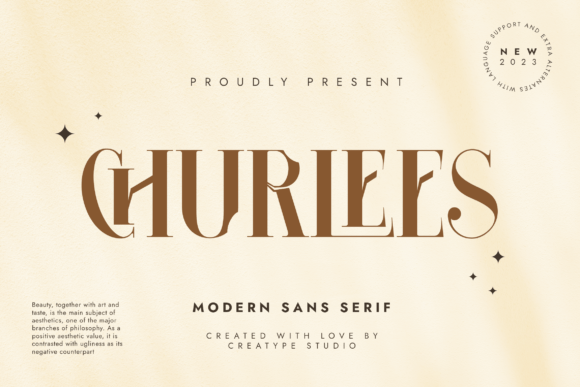
The Perfect Blend of Style and Function: Churlees Font
Have you ever been stuck in front of a blank canvas, staring at a blank page, and desperately searching for that one element that will elevate your design to the next level? It’s a familiar feeling for many creatives, but the right font can be the game-changer you need. For those seeking a sophisticated and elegant touch, look no further than the Churlees Font.
Churlees Font is a sleek and modern typeface designed to make a statement in any design project. From branding and logos to social media posts and product packaging, this versatile font is the perfect choice for designers looking to add a touch of sophistication and elegance to their work. Its minimalistic design and wide range of glyphs and ligatures make it a valuable asset for any creative looking to take their designs to the next level.
Churlees Font Key Features
- Font Family: Churlees Font is a serif font family designed by Alan Meeks in 1988. It is available in several weights and styles.
- Unique Characteristics: Churlees Font is known for its elegant and refined design, with distinctive letterforms and subtle flair, making it a popular choice for book and magazine publishing, as well as branding and advertising.
Review of Churlees Font
Overall, I found Churlees Font to be a decent choice for body text and display purposes, but it lacks some of the polish and consistency that I expect from a modern font.
- Churlees Font has a pleasant, approachable feel to it. The letterforms are friendly and easy to read.
- The font is highly legible, even at small font sizes, making it a good choice for body text.
- The font supports a wide range of languages, which is a plus for projects that require multilingual support.
- Churlees Font lacks consistency in its letter spacing and kerning, which can make it look a bit sloppy at times.
- The font’s x-height is a bit too short, which can make it difficult to read for some users.
- The font doesn’t have a strong personality or unique character, which can make it blend in with the crowd.
While Churlees Font has some nice qualities, it ultimately feels like a middle-of-the-road choice. If you’re looking for a font that’s easy to read and doesn’t take itself too seriously, it might be a good fit. However, if you’re looking for something with a bit more personality or consistency, you might want to consider other options.
Tips for Getting the Most Out of Churlees Font
Churlees Font is a versatile font that works well in a variety of contexts. To get the most out of it, try:
- Using it for titles and headings to add a touch of whimsy and personality.
- Set the font as the main title font for the book cover.
- Choose a background image that resembles old book pages or a distressed texture.
- Combine with other design elements like golden accents, classic book illustrations, or subtle shading to enhance the vintage feel.
- Choose a meaningful quote or phrase that resonates with the desired aesthetic.
- Set Churlees Font as the primary font for the quote, using a combination of bold and regular weights to create visual interest.
- Combine with other design elements like minimalist backgrounds, watercolor textures, or subtle illustrations to enhance the handwritten feel.
Project 2: Handwritten Quote Graphic
Churlees Font can be used to create a beautiful, handwritten quote graphic that adds a personal touch to any room or space.
Tip: Experiment with different font sizes, colors, and arrangements to create a unique and eye-catching design.
Project 3: Steampunk-Inspired Poster
Churlees Font’s distressed and ornate look makes it a perfect fit for a steampunk-inspired poster design.